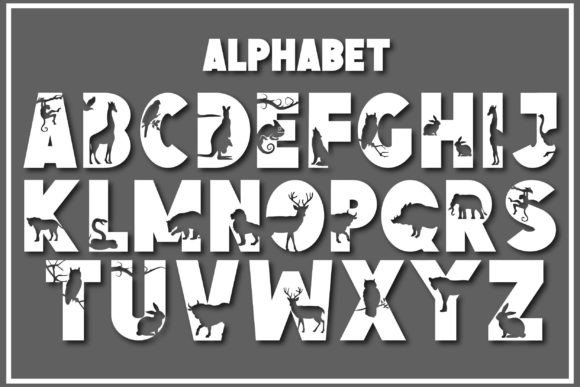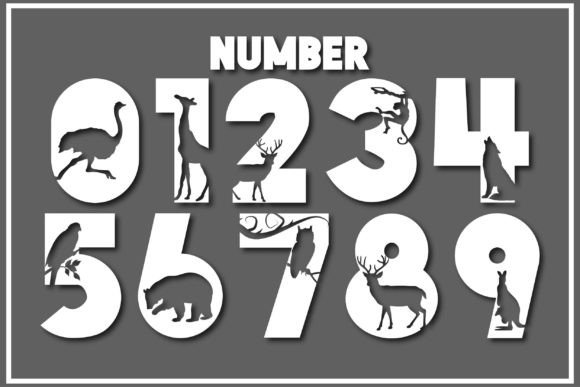
Introduction to Animal Kingdom Font
Animal Kingdom celebrates nature and wildlife in all its forms.
This gorgeous animal-themed decorative font will turn any craft idea into a true standout It works great for all your nature-themed projects.
Key Features of Animal Kingdom Font
Why Choose Animal Kingdom Font?
Animal Kingdom Font offers exceptional quality and versatility, making it a valuable addition to your design toolkit. Whether you’re creating for personal projects or commercial use, Animal Kingdom Font delivers professional results.